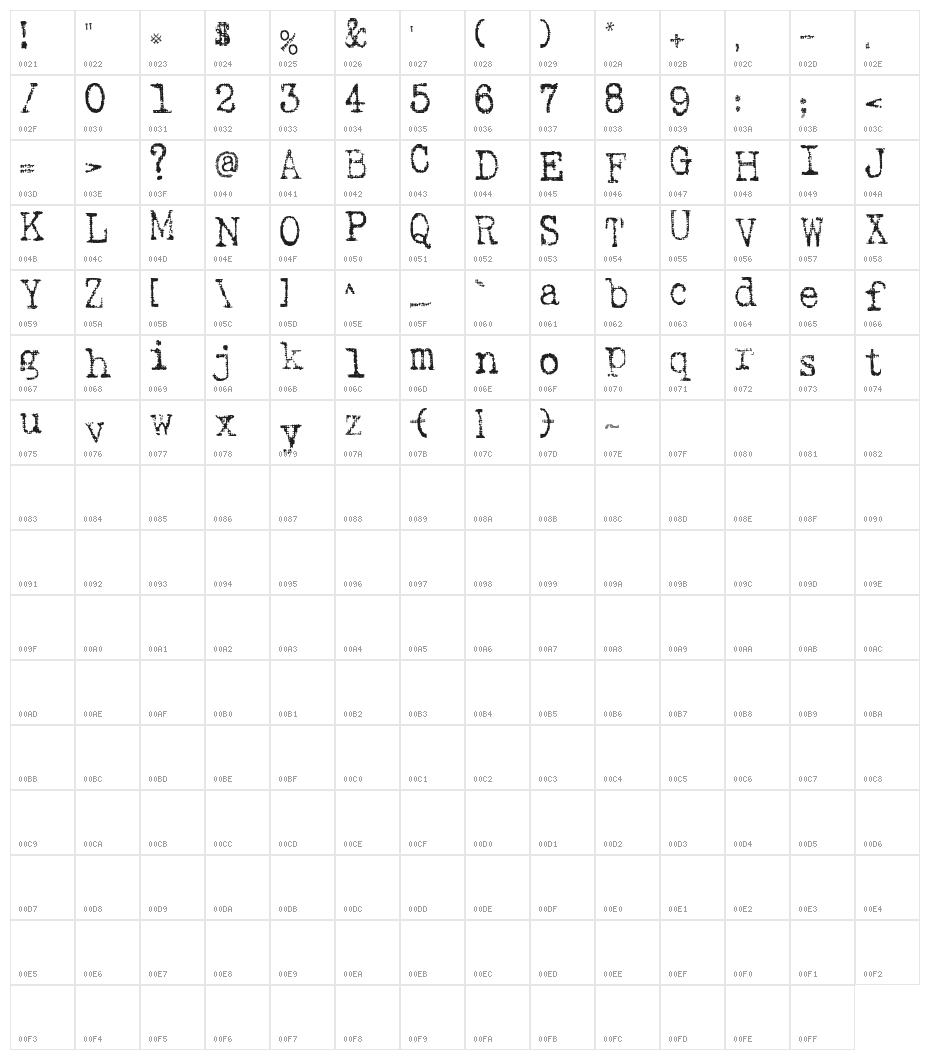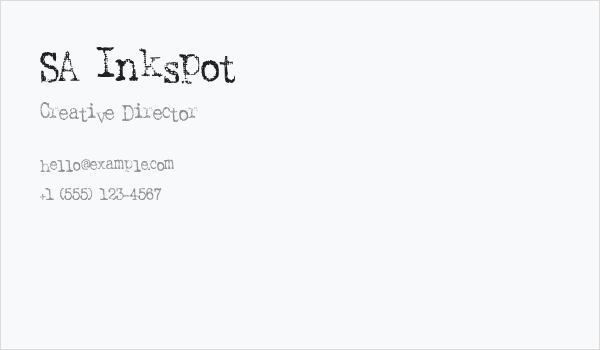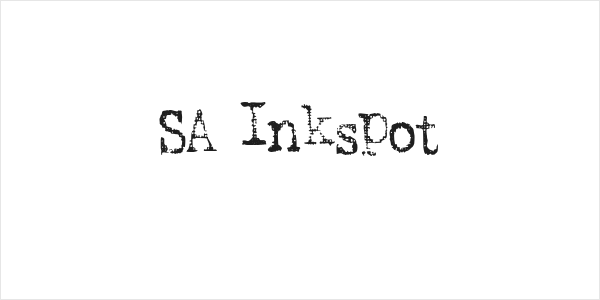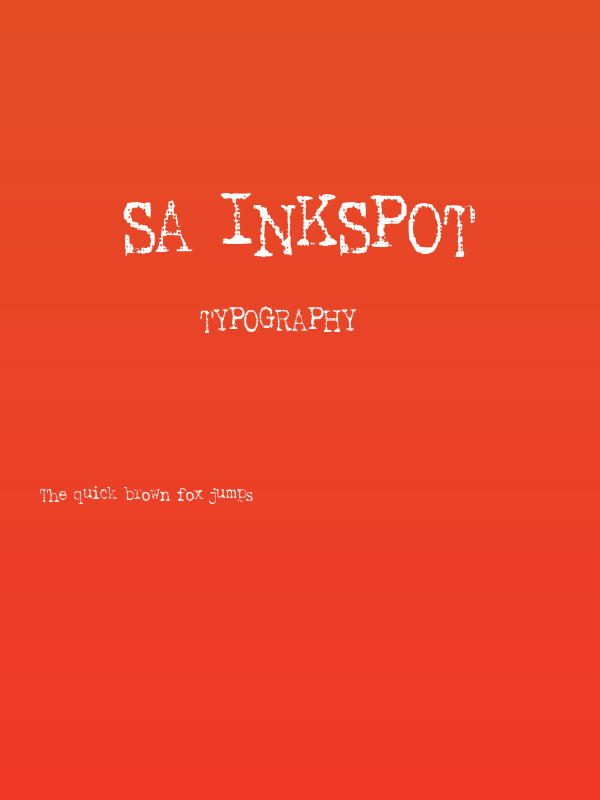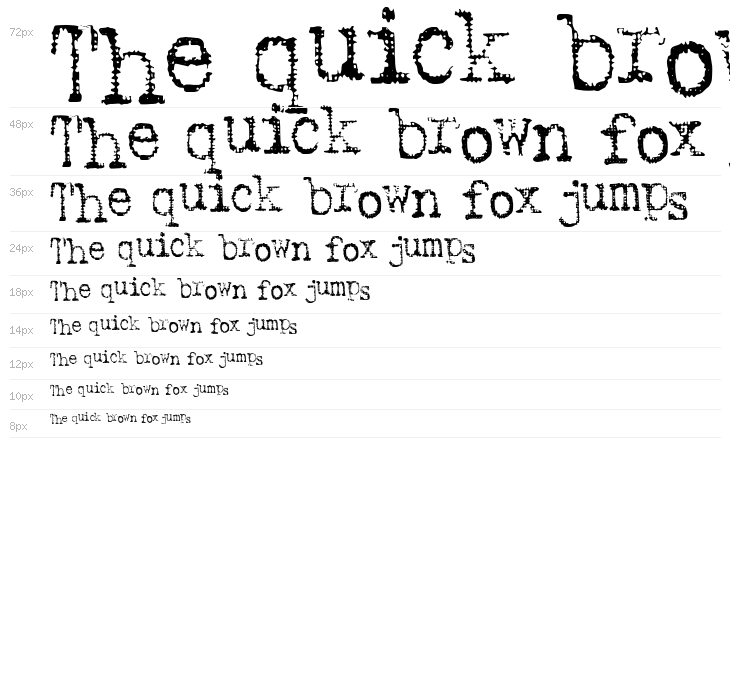
SA Inkspot Font
SA Inkspot Description
This font features a distressed, grunge style with a textured appearance that mimics ink splatters or paint splashes. The characters have an uneven, rough edge, giving them a unique, artistic look. The uppercase and lowercase letters maintain a consistent style, with each character appearing as if it has been stamped or printed with a worn-out ink pad. The numbers and special characters follow the same design, adding to the overall cohesive feel. This font is ideal for projects that require a bold, eye-catching aesthetic with a touch of chaos and creativity.
| Overall Style | Grunge, Artistic |
| Use Case | Headlines, Posters, Artistic Designs |
| Proposed Projects | Ideal for album covers, posters, graffiti art, and edgy branding projects. |